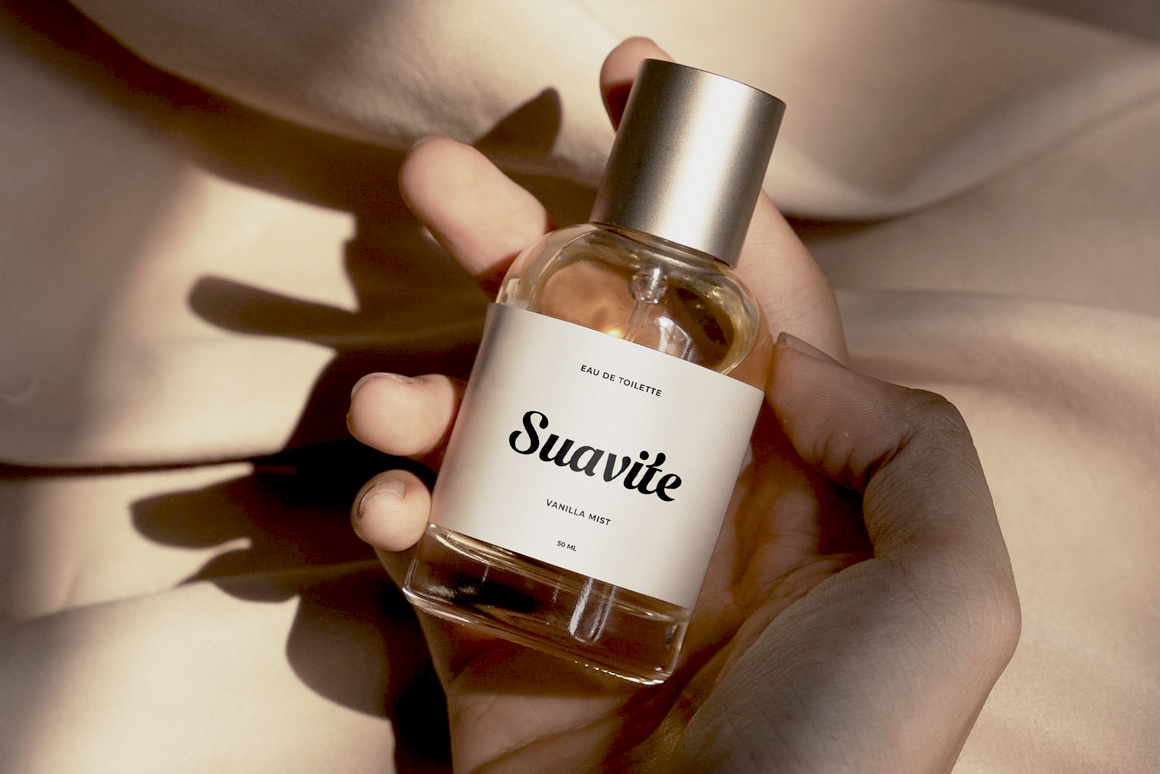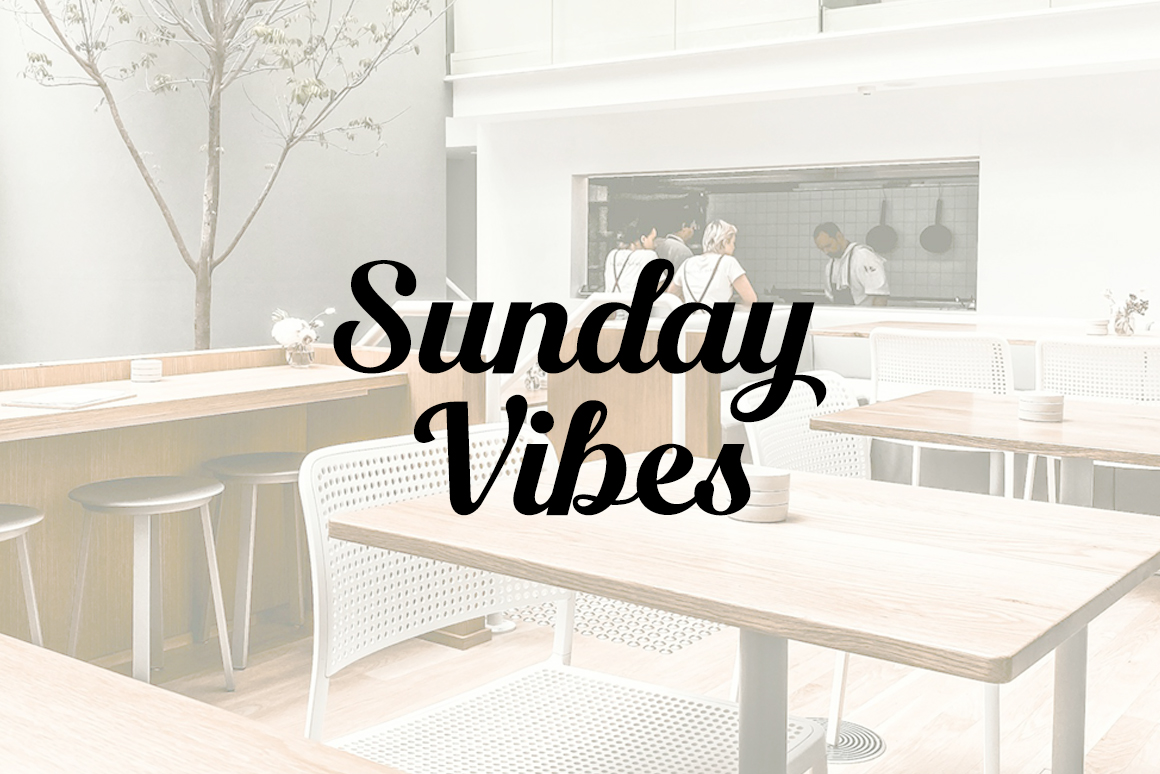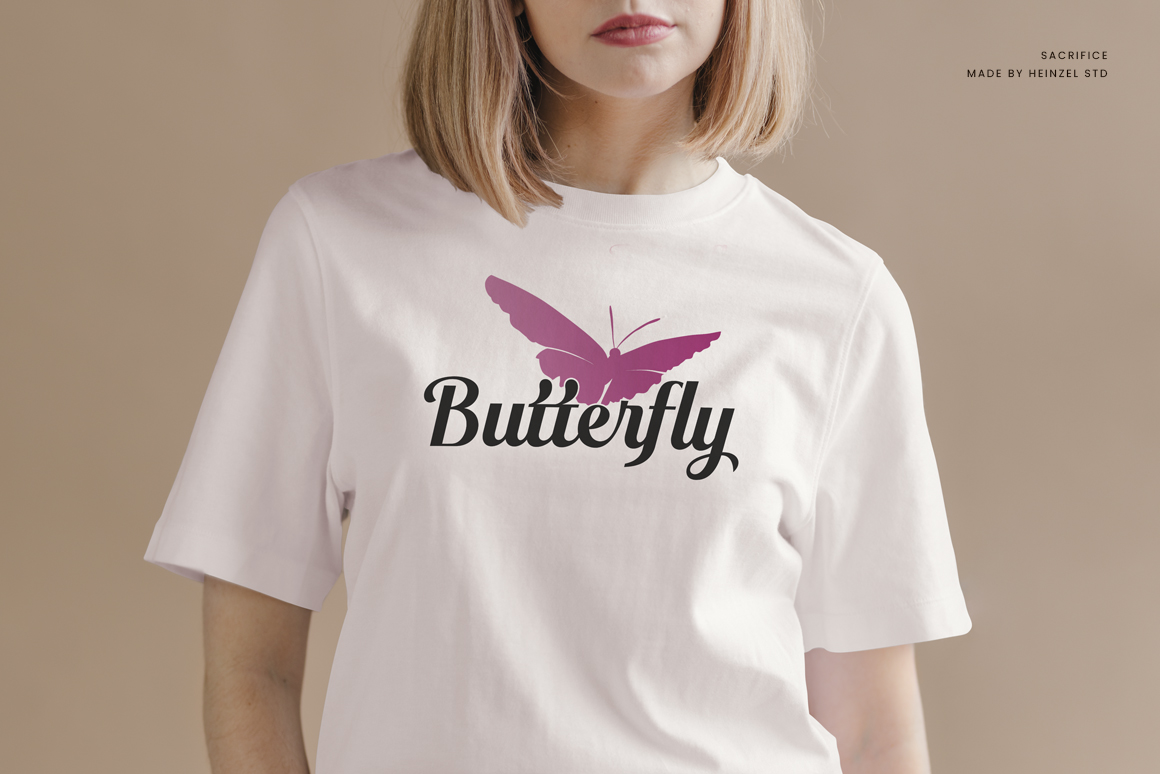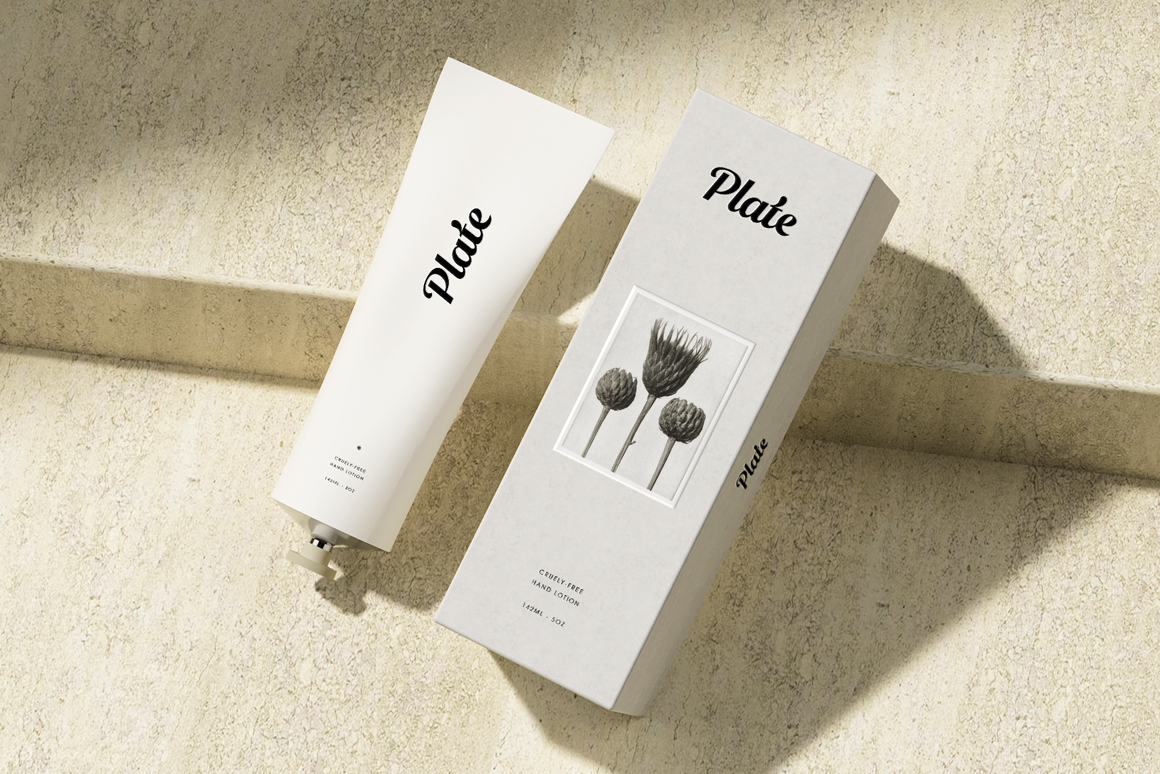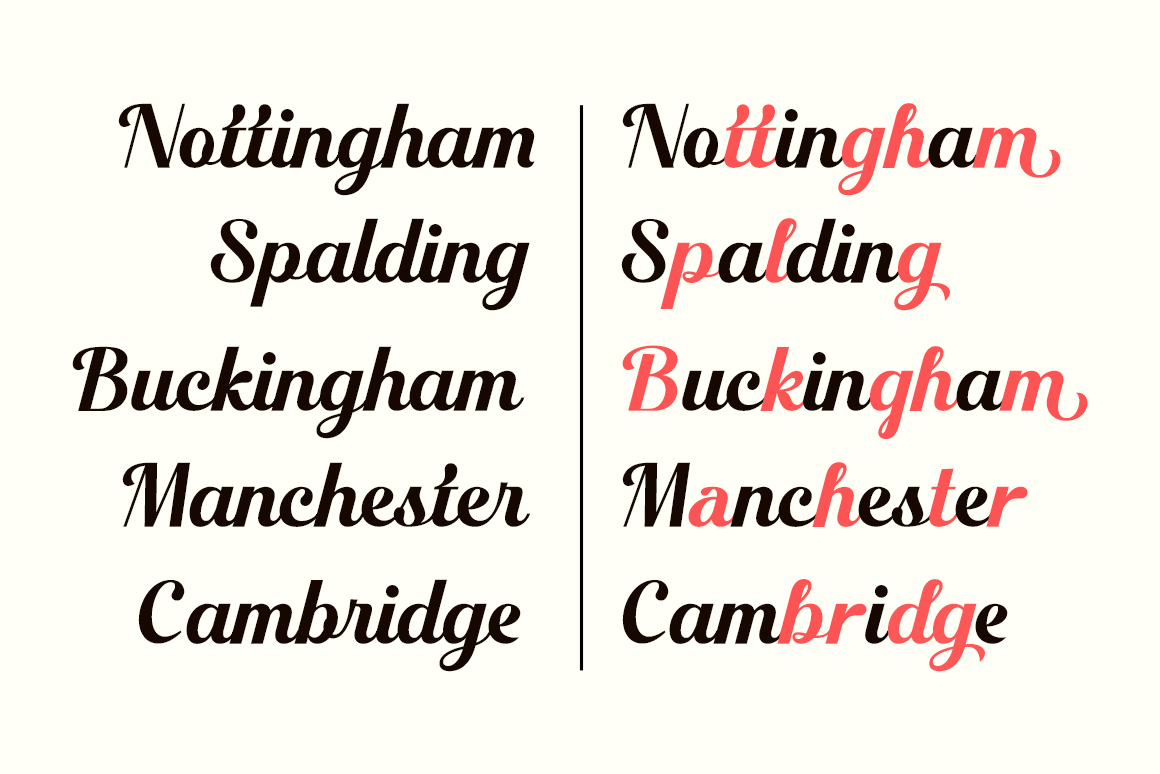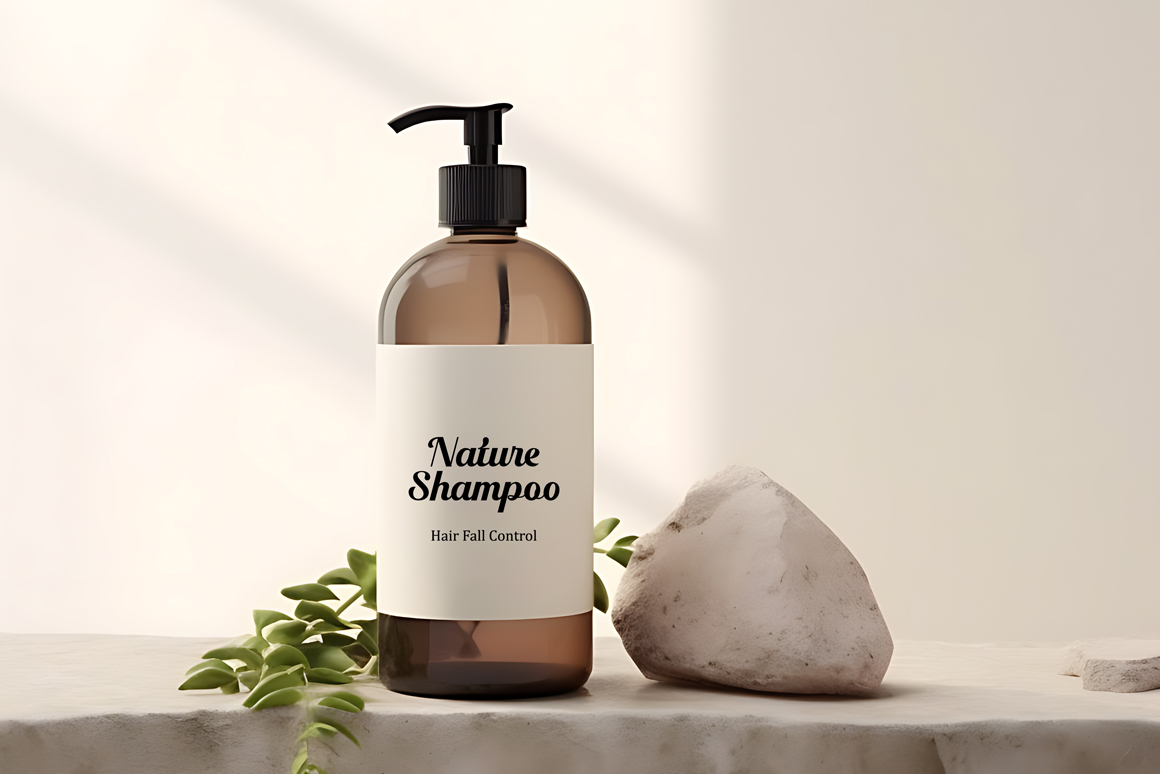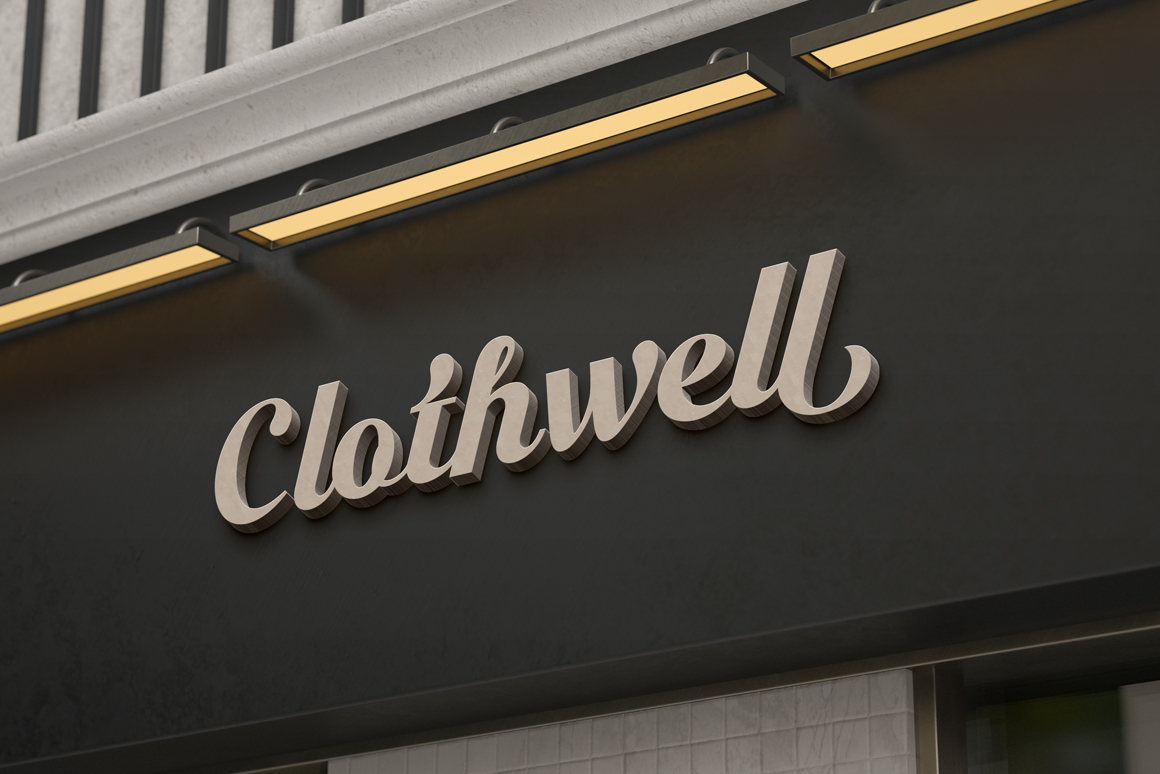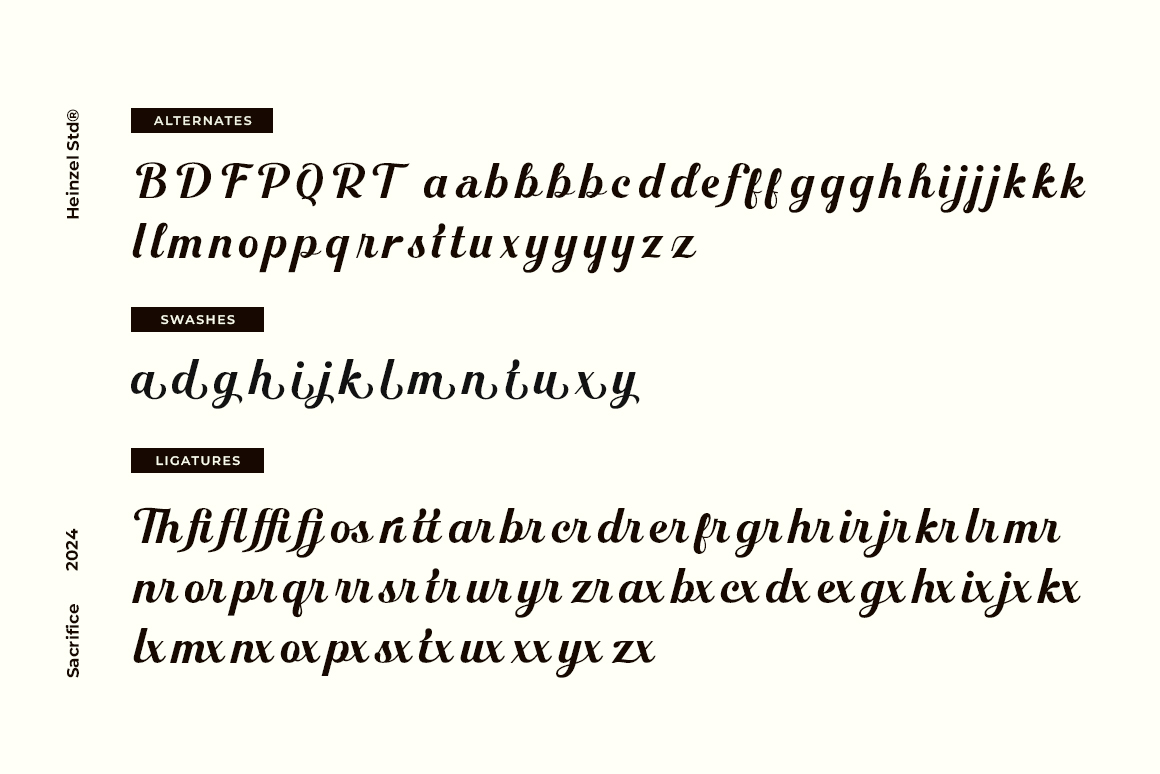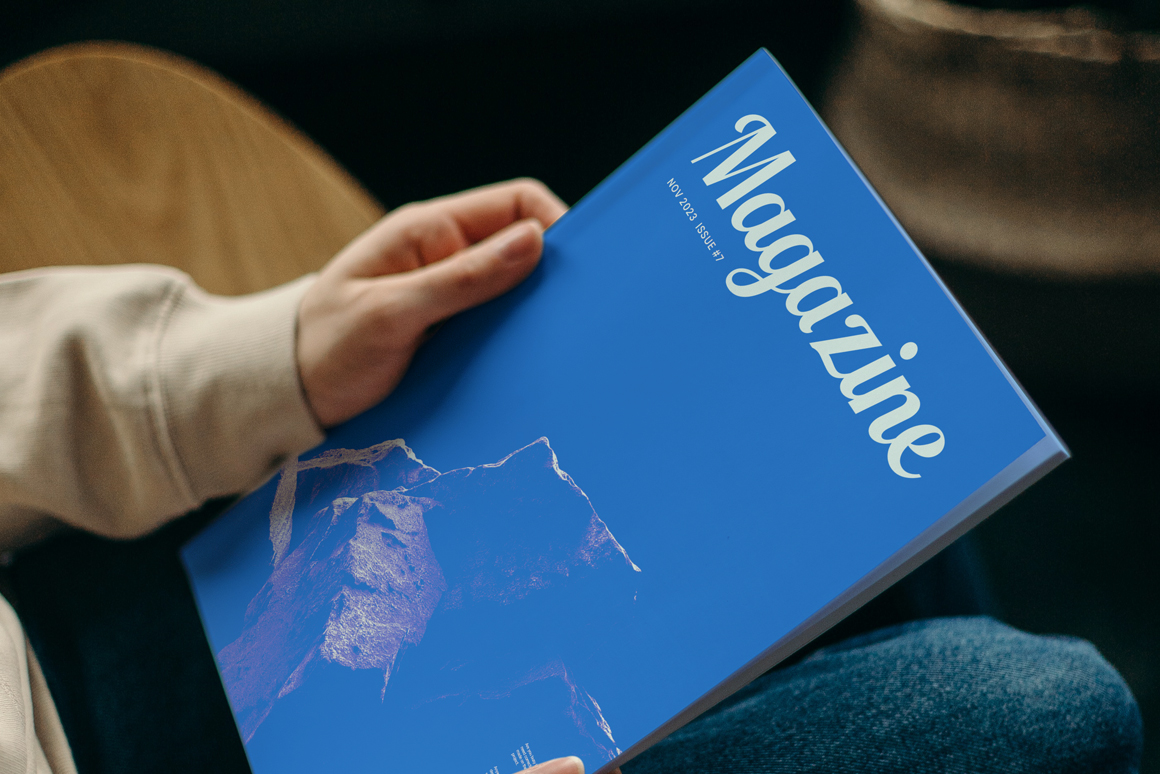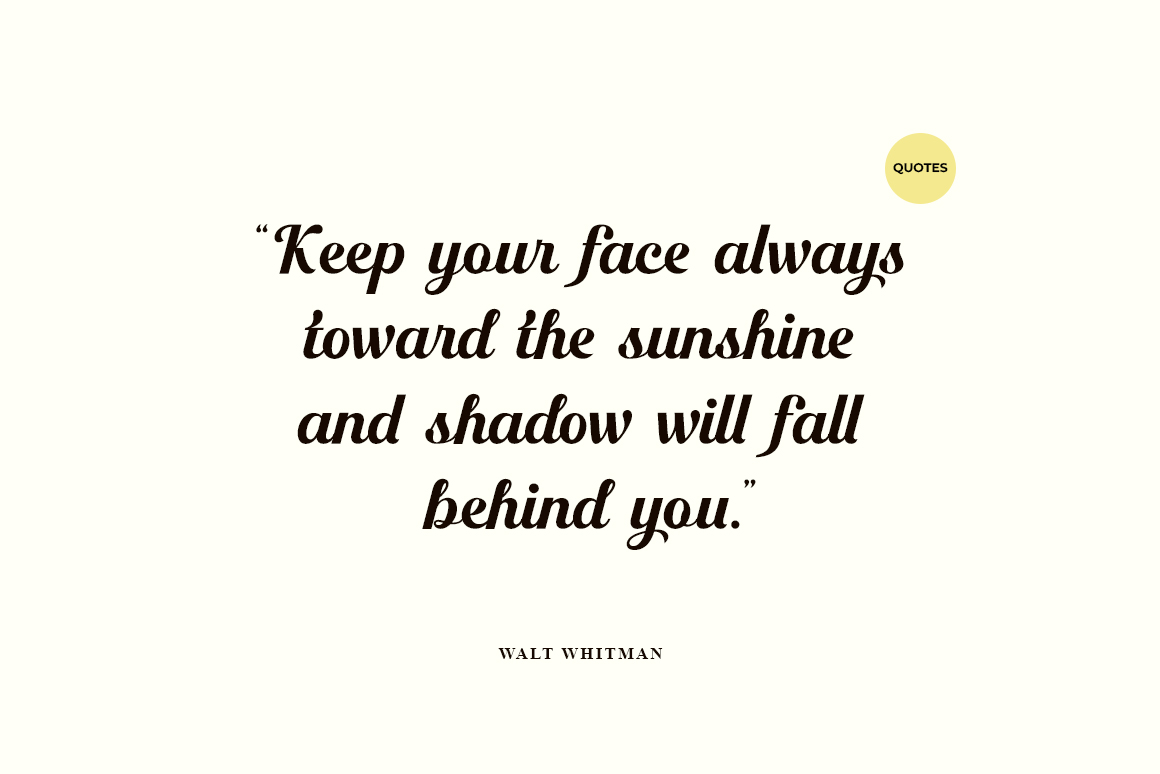
Sacrifice Font
Sacrifice is a script typeface with a vintage look. It has many alternate characters, swashes, ligatures, and tails. These alternates make Sacrifice very versatile. You can design beautiful, elegant, and diverse typographic elements with it. It’s well suited for logos, lettering artwork, t-shirt designs, editorial illustrations, and more.
Sacrifice Features :
- Uppercase and Lowercase
- Numerals and Punctuations
- Ligatures and Alternates